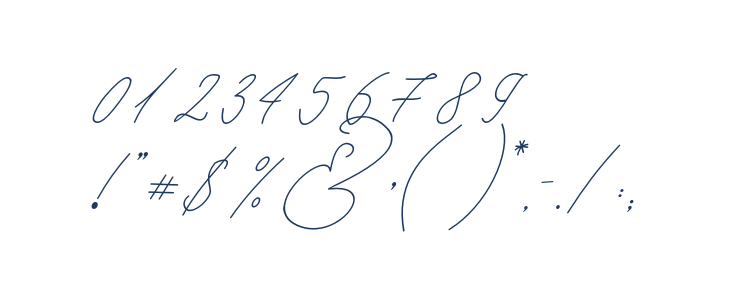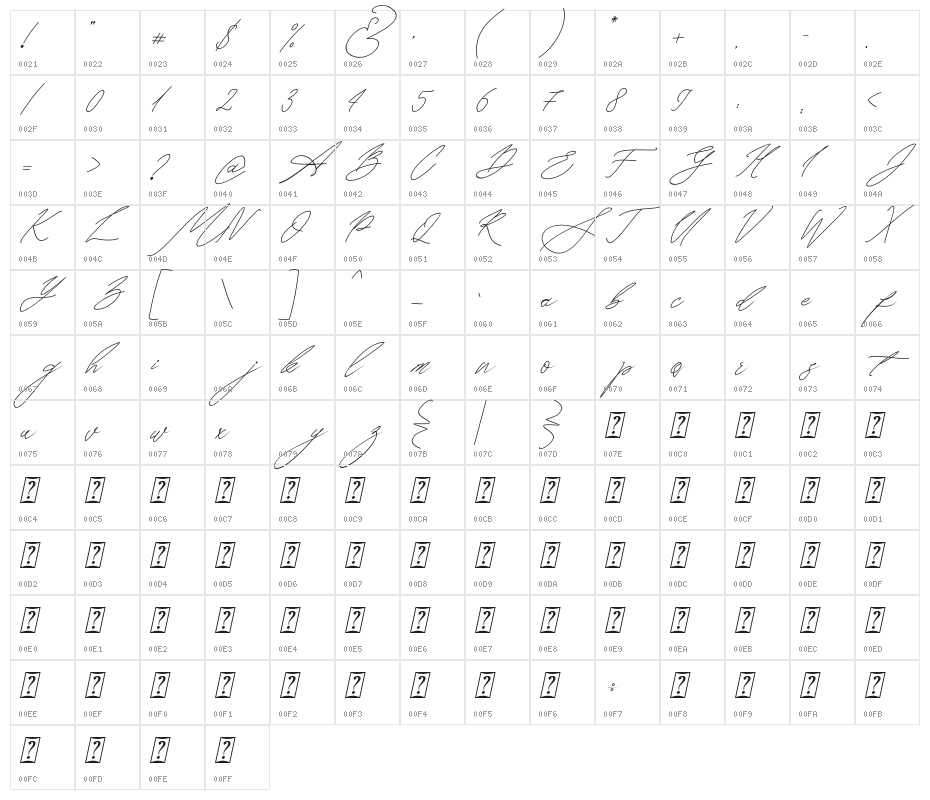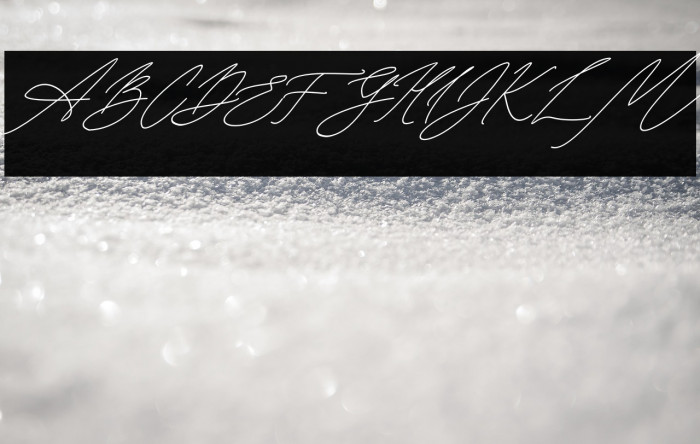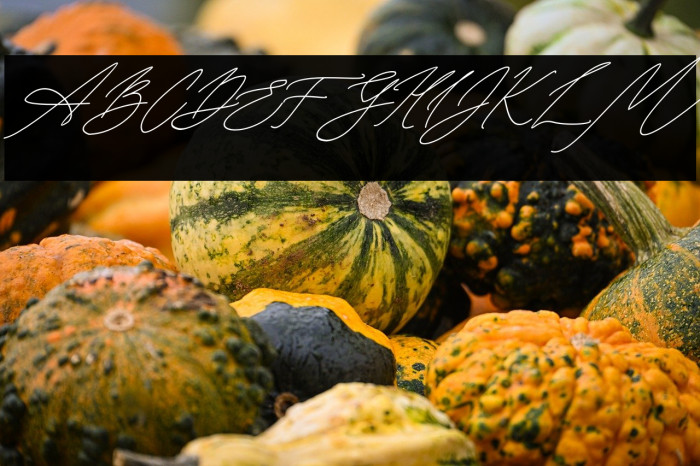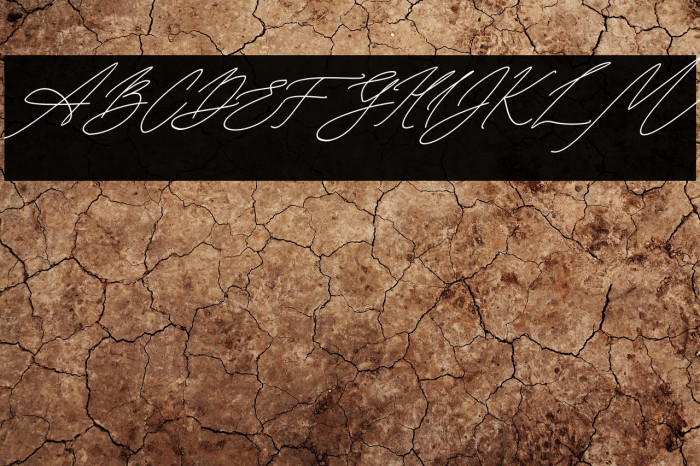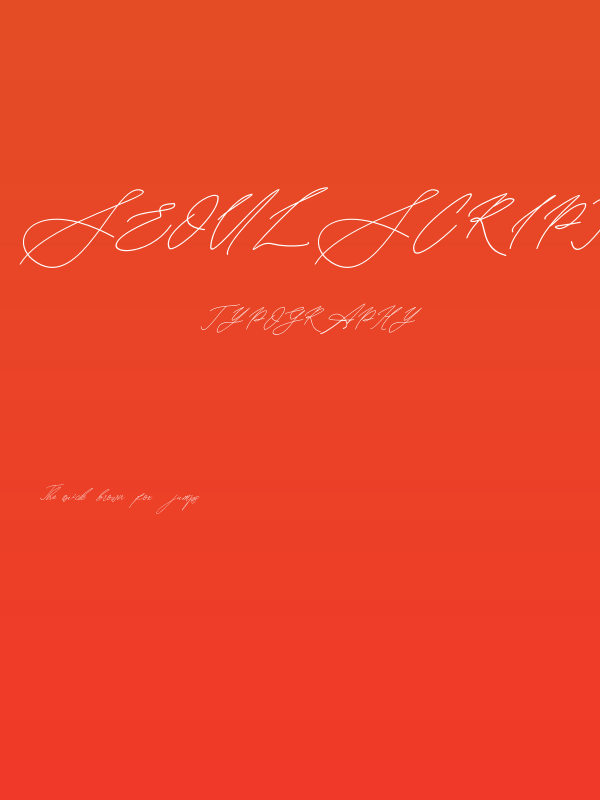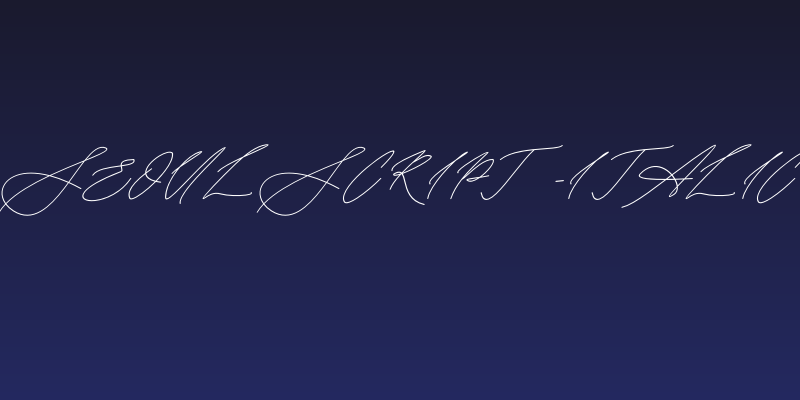
Seoulscript-Italic Font
Seoulscript-Italic Description
This elegant script font features a flowing, cursive style with a distinct italic slant. The characters are intricately connected, creating a seamless and sophisticated appearance. The uppercase letters are tall and graceful, while the lowercase letters maintain a consistent rhythm and fluidity. The numerals are stylish and complement the overall aesthetic. Special characters are crafted with the same attention to detail, enhancing the font's versatility. The thin strokes and delicate curves give it a refined, artistic quality, making it ideal for formal and decorative applications.